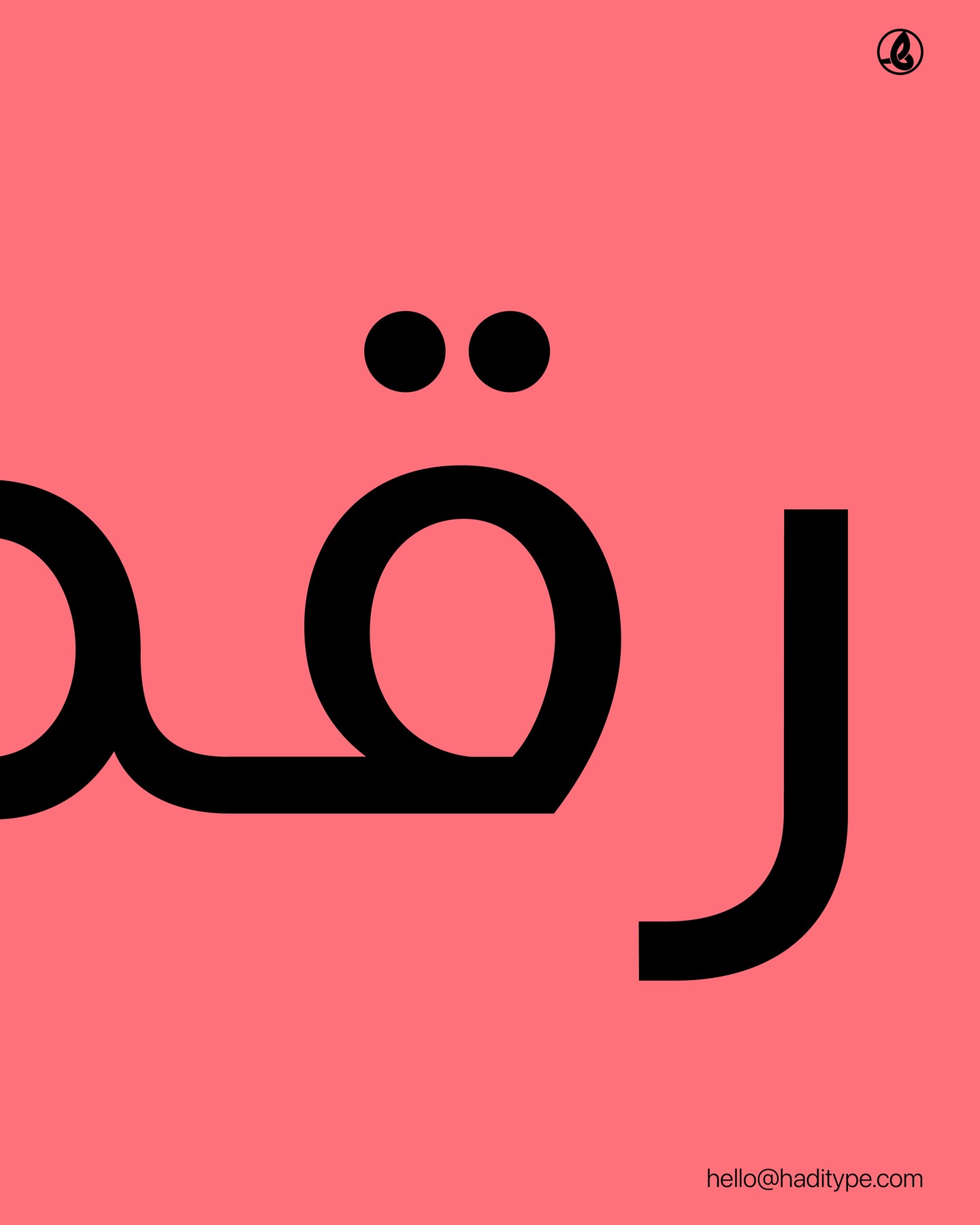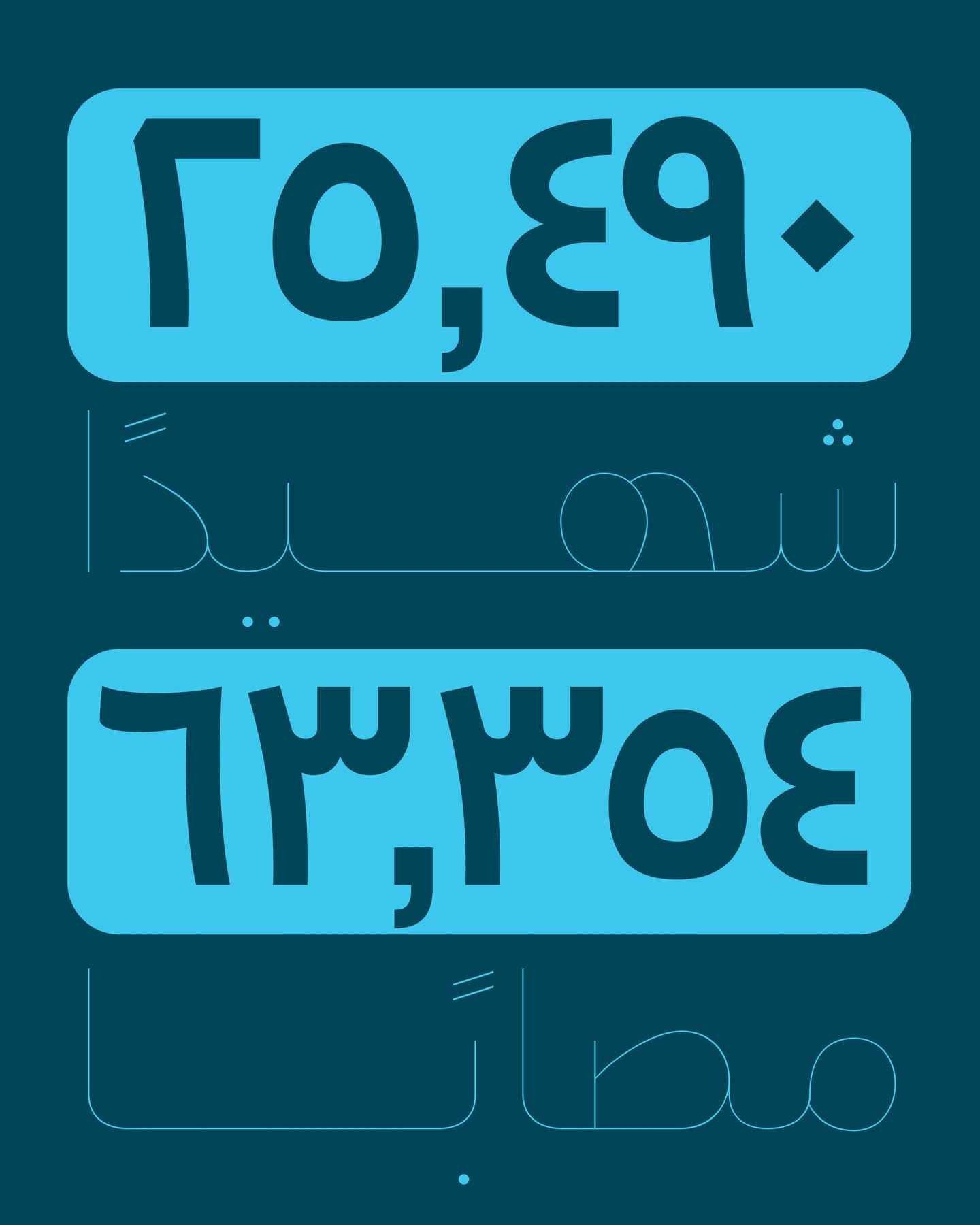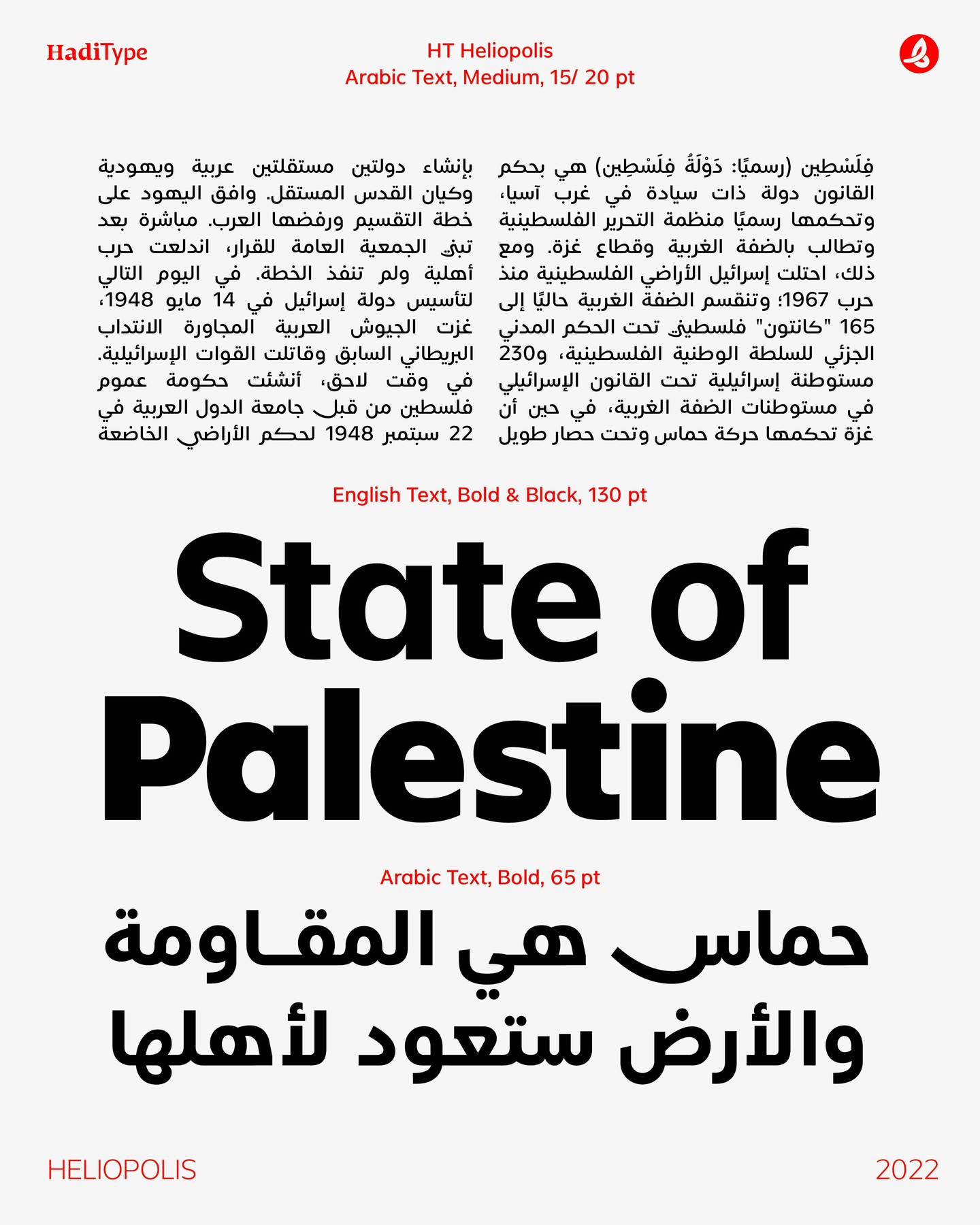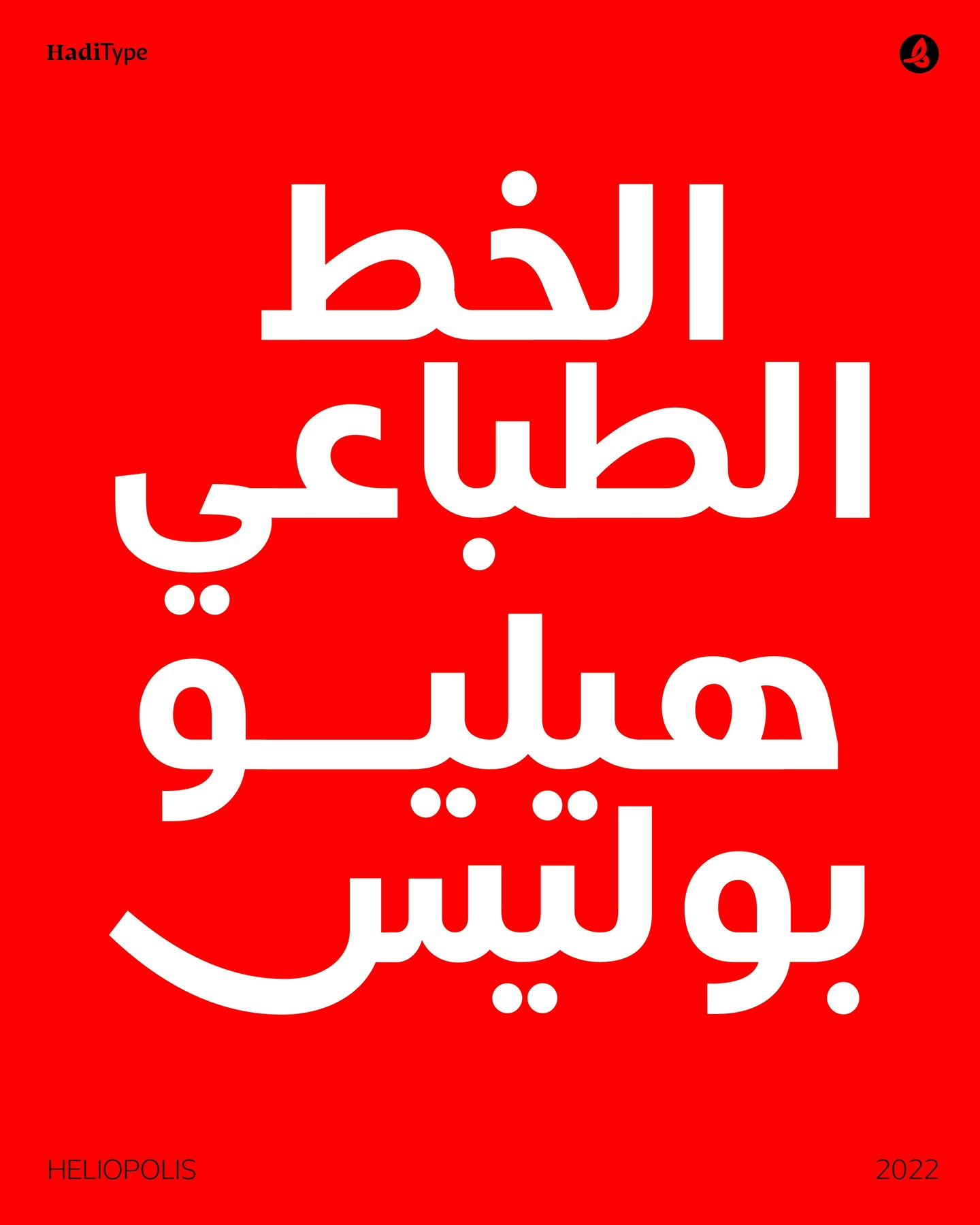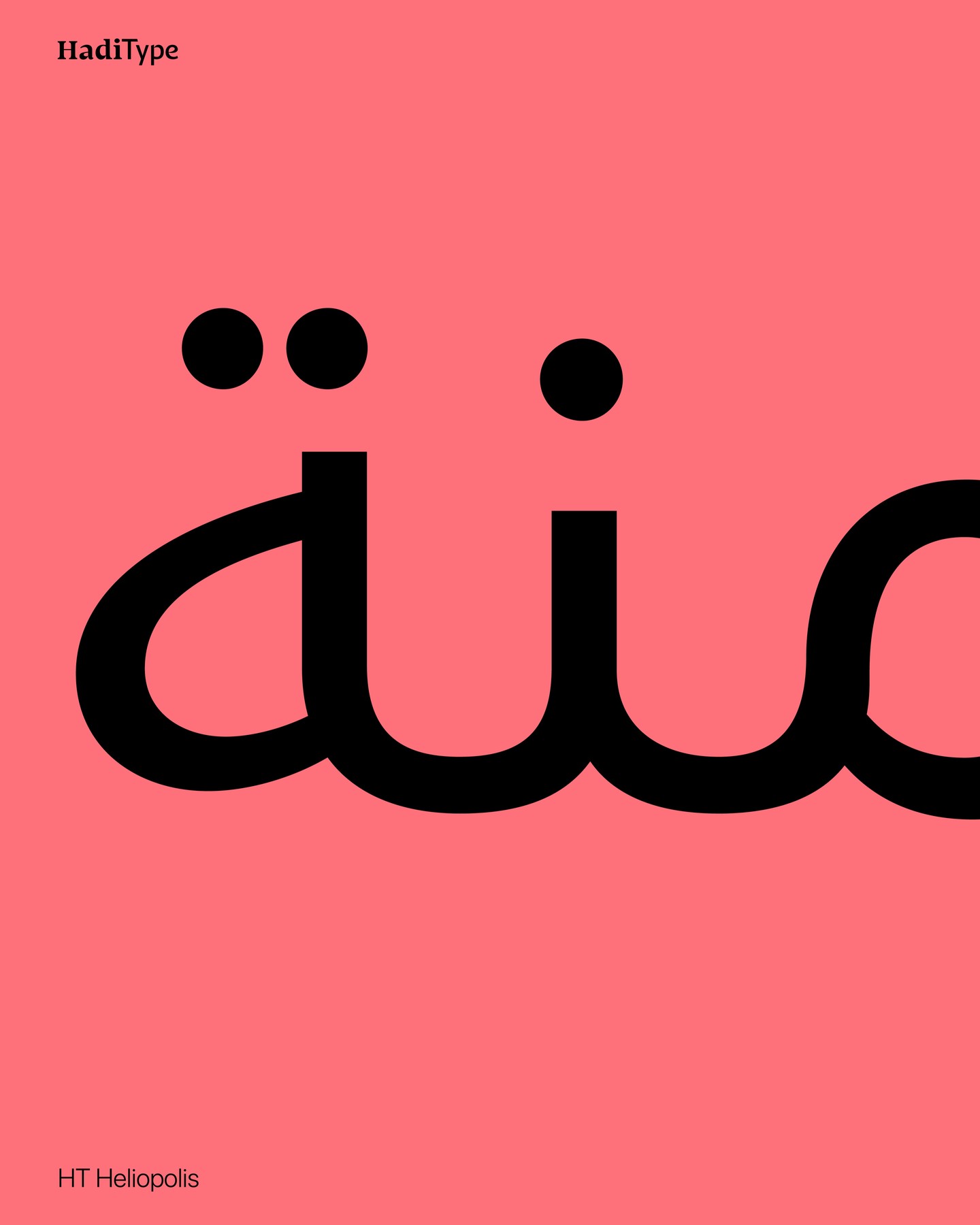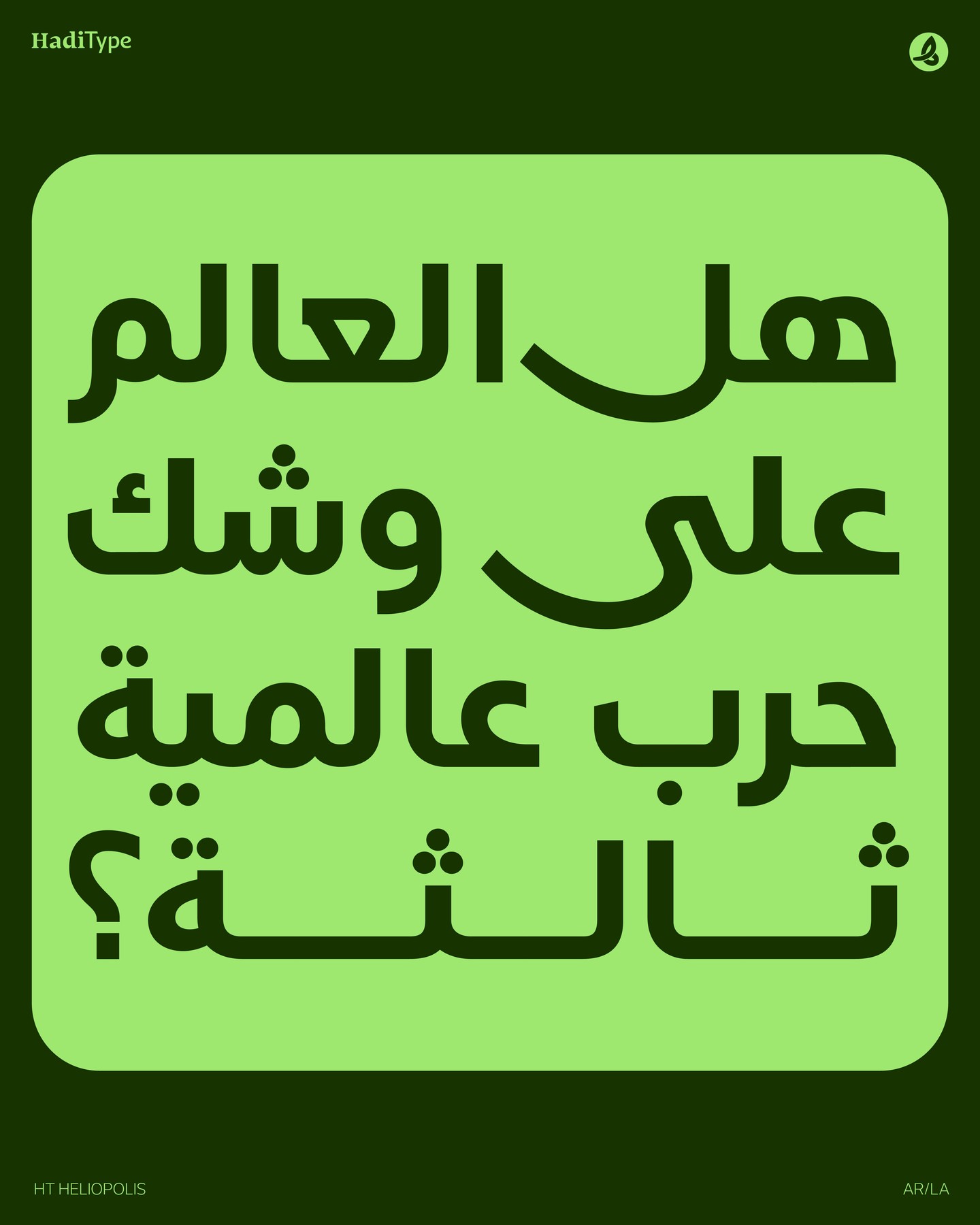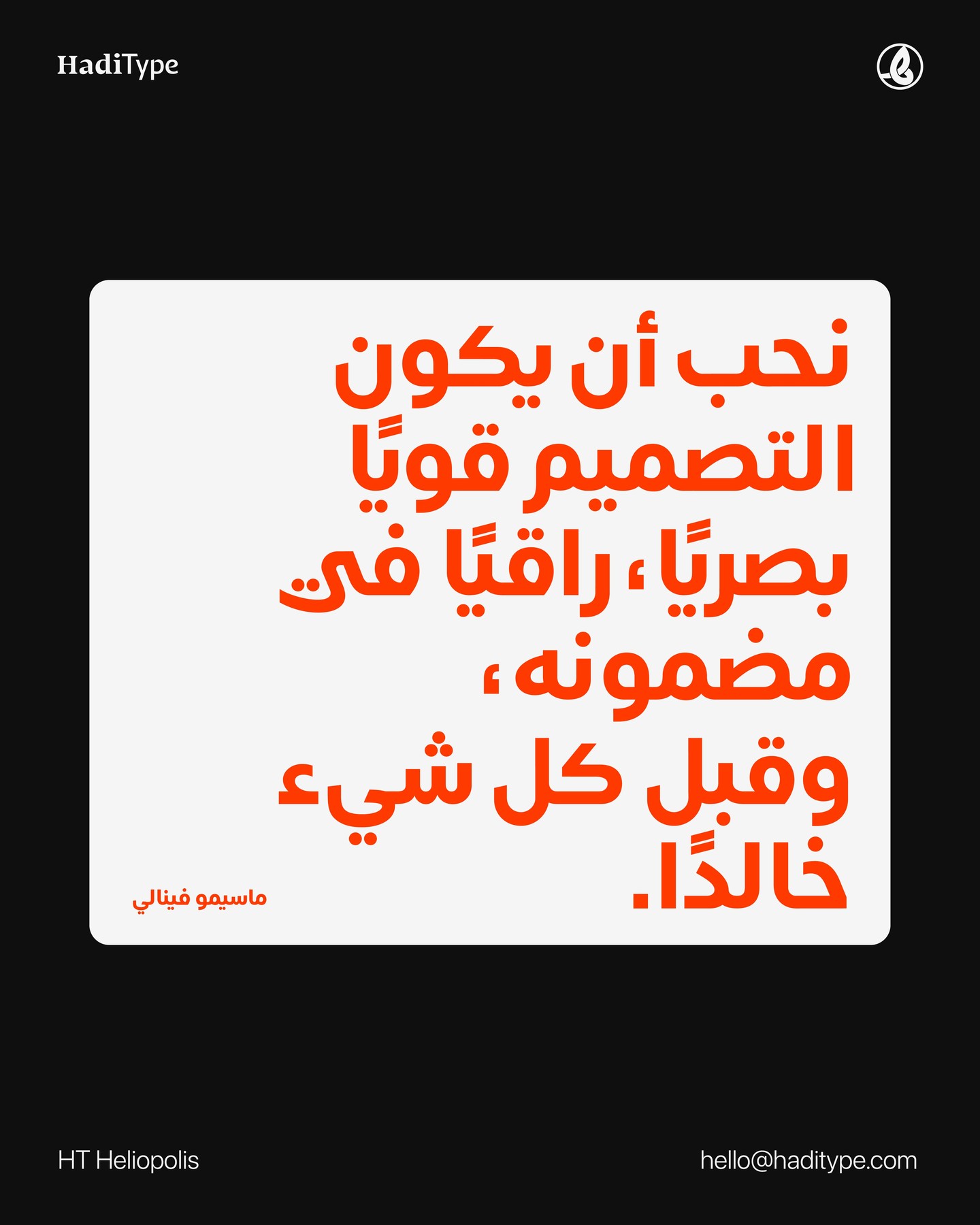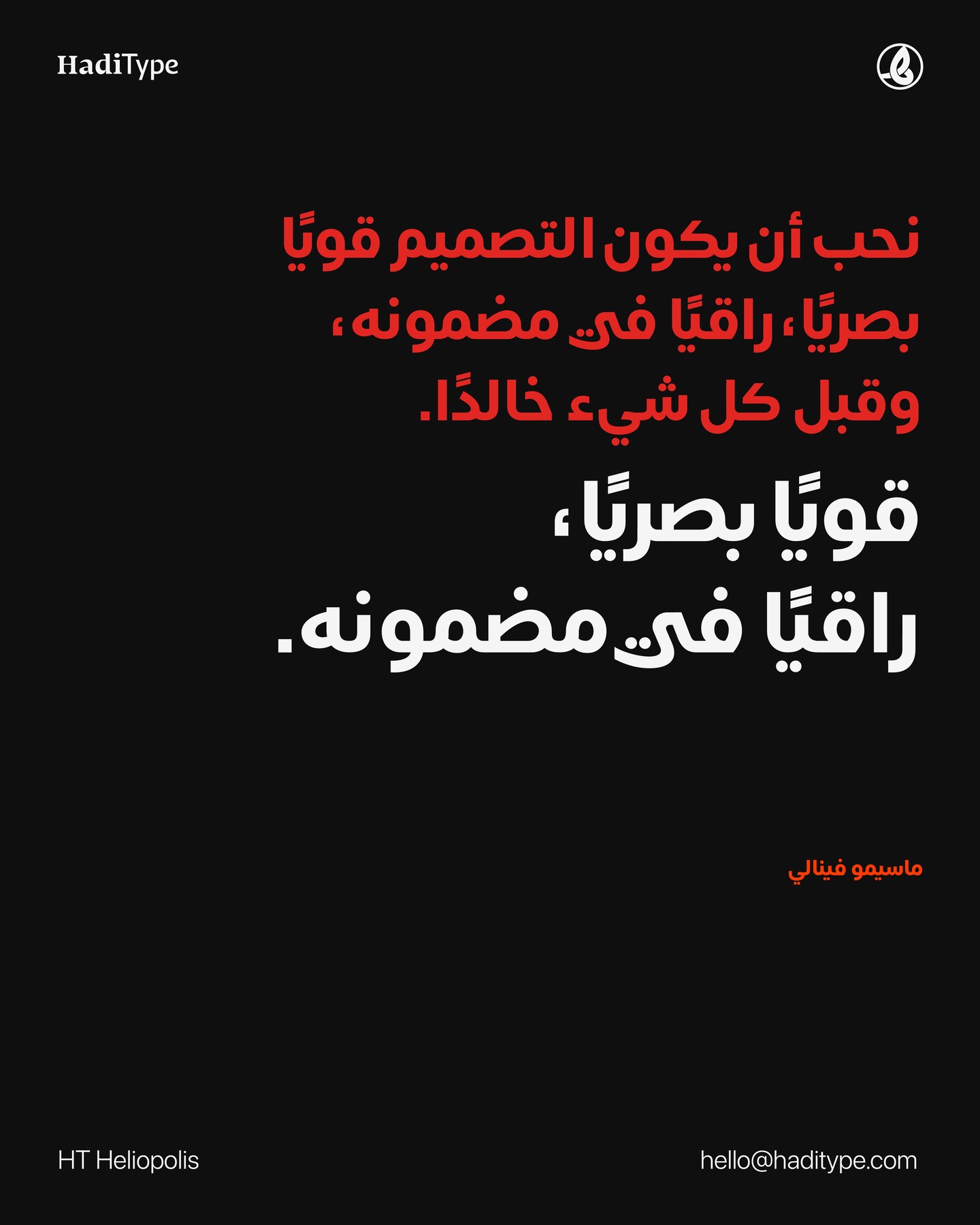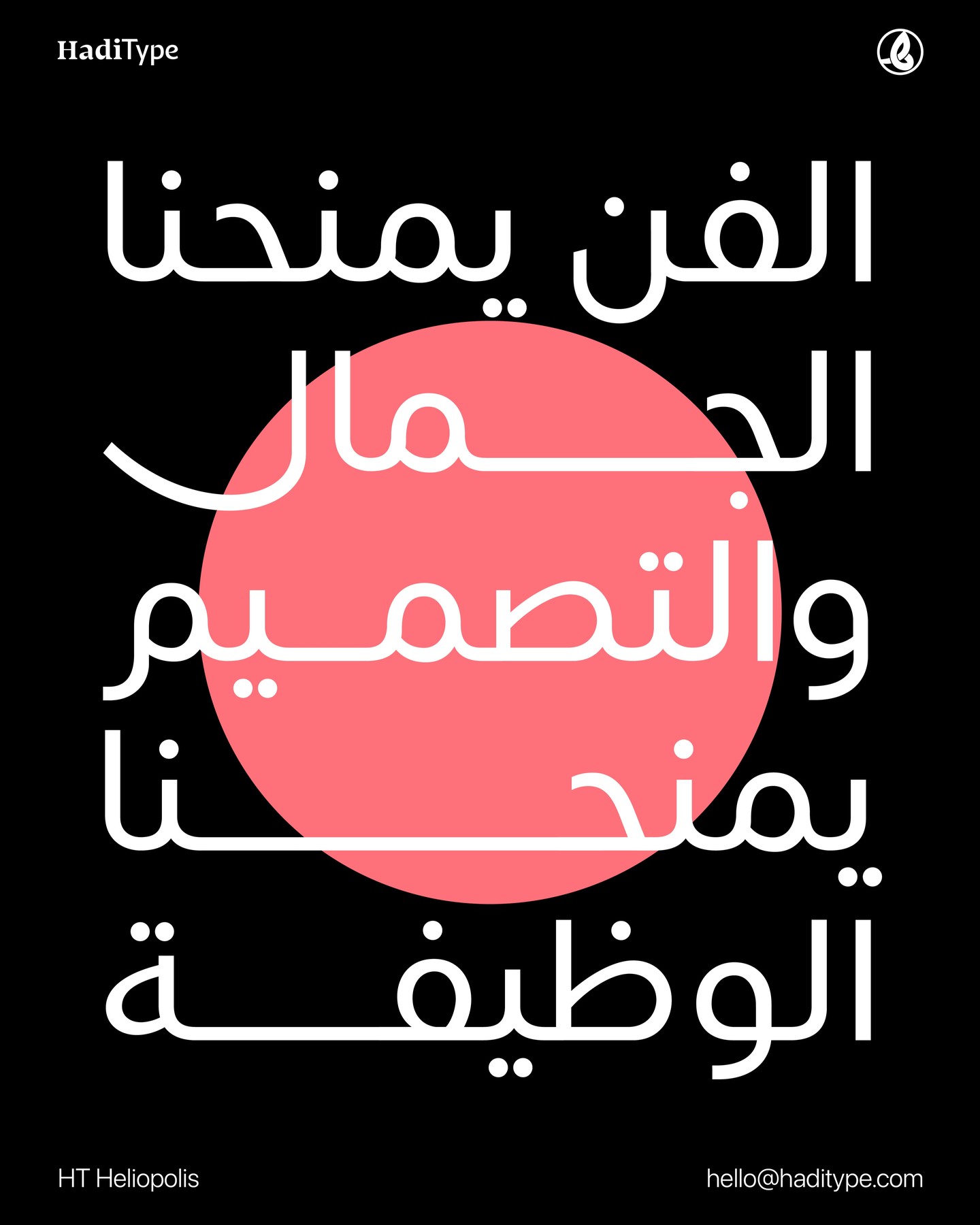
HT Heliopolis
هيليوبوليس – خط عربي مصمم لعصر التكنولوجيا
مثالي للواجهات، التطبيقات، وأنظمة التشغيل
وضوح على كل شاشة… مع هيليوبوليس
sharp edges and elegant rounded corners.
حرف عربي معاصر مصمم خصيصًا للتقنيات الحديثة
We designed Heliopolis Font to work with small text sizes
هيليوبوليس لتجربة رقمية متكاملة
Heliopolis Font is a Kufic multilanguage typeface drawn for screens. We meticulously designed Heliopolis Font to work with small text sizes while maintaining exceptional beauty that aligns with today's technological diversity. The Heliopolis Font features an entirely new look and comes in several contrasting weights to fully meet your preferences, with sharp edges and elegant rounded corners.
Heliopolis Font supports Arabic, Persian, and Urdu languages.
Supported Languages: Arabic, Persian, Urdu, North-African Arabic, Kurdî, & Turkish.